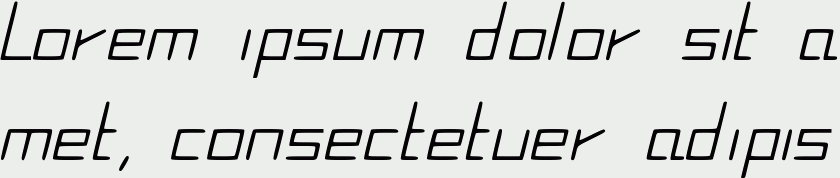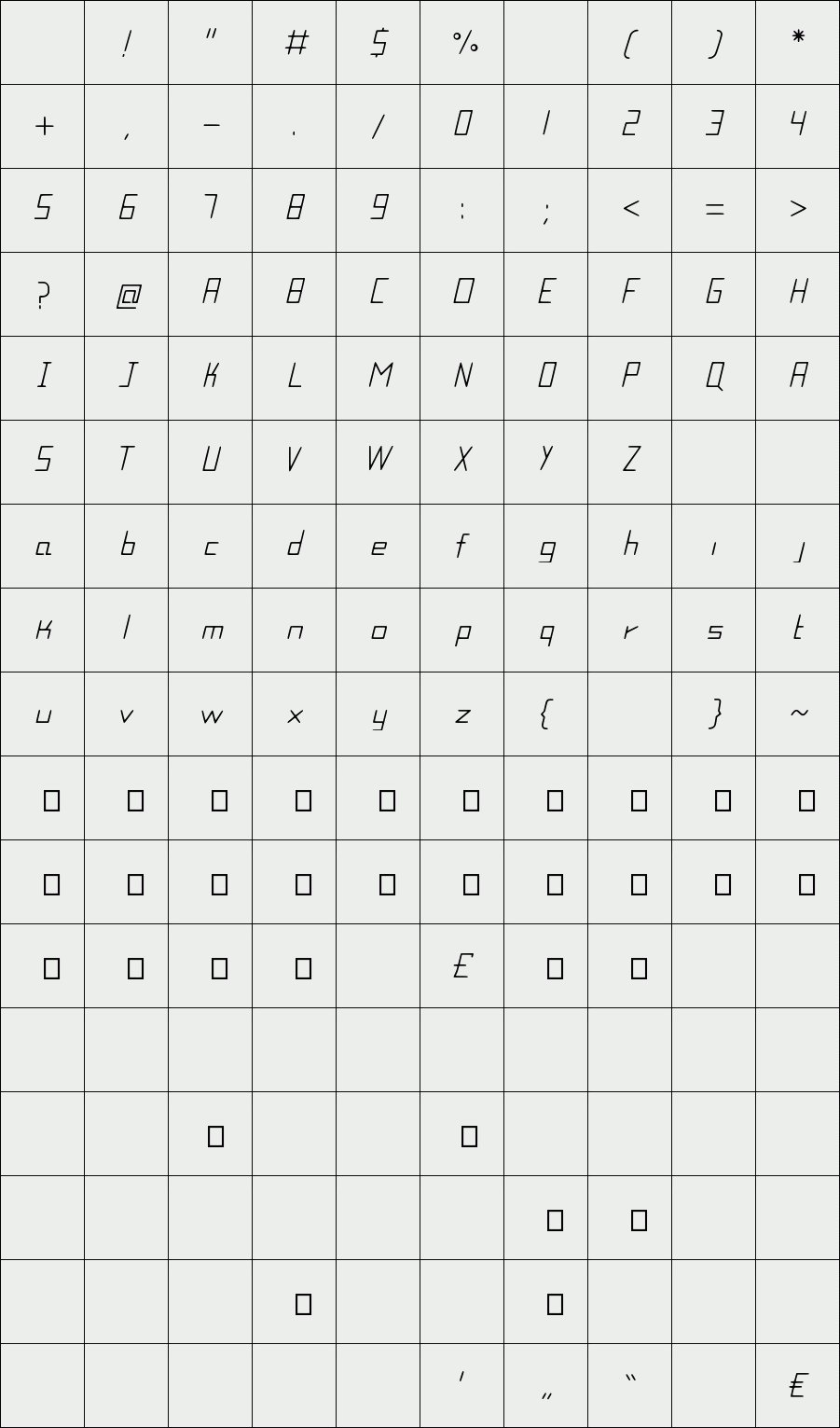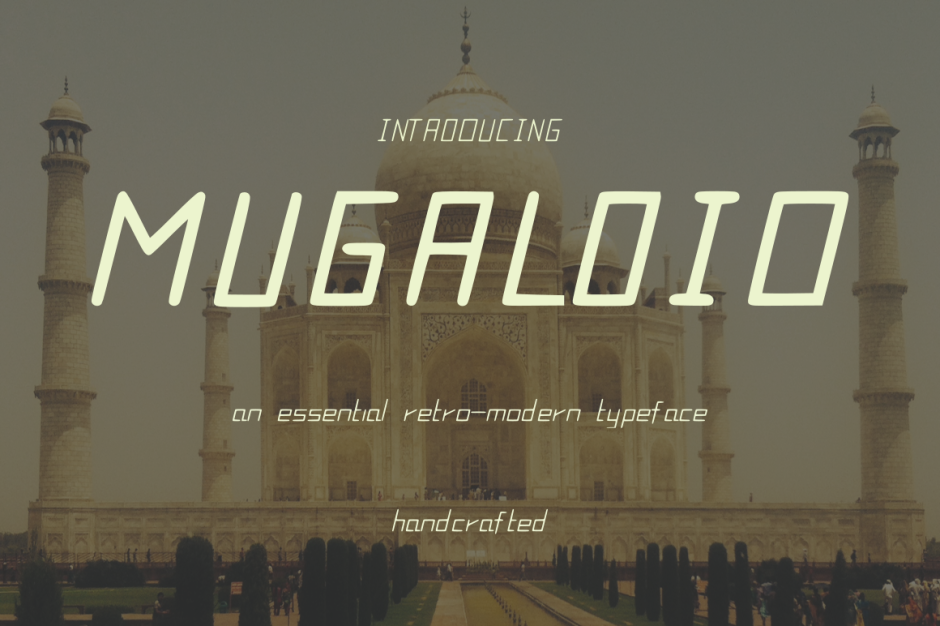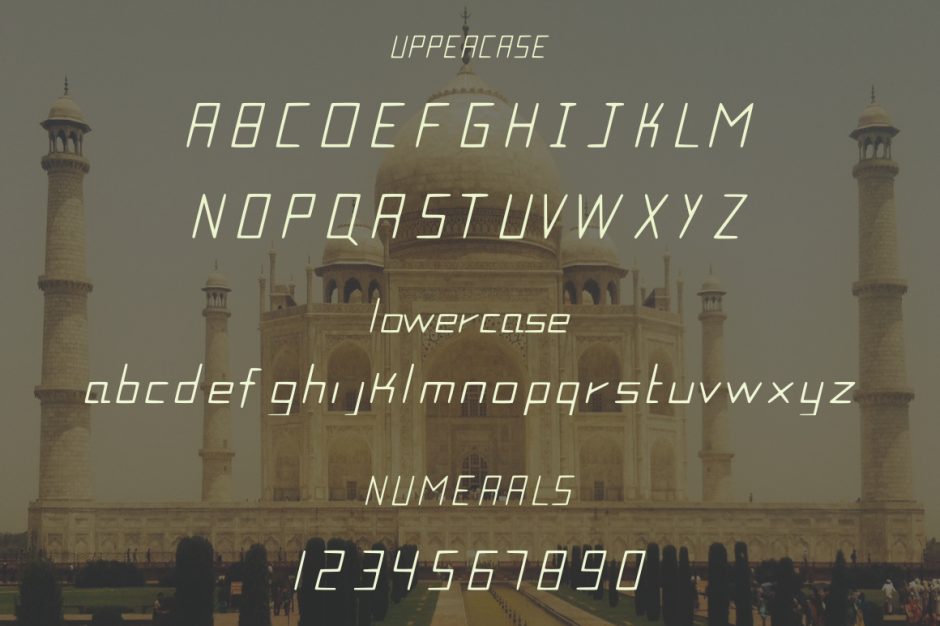
Mugaloid
I'm glad to introduce Mugaloid Typeface.
Mugaloid is a hand-drawn font. I was inspired by some old newspaper prints that had structured retro serif typefaces and a set of accompanying comic books that had a funky tone. I wanted to blend in these completely opposite styles to create a new effect! Result - Mugaloid typeface, a super-thin handcrafted retro-modern font with a funky sound to it.
Missing punctuations: ` & _ [ ] | '
Designer: vignesh oviyan